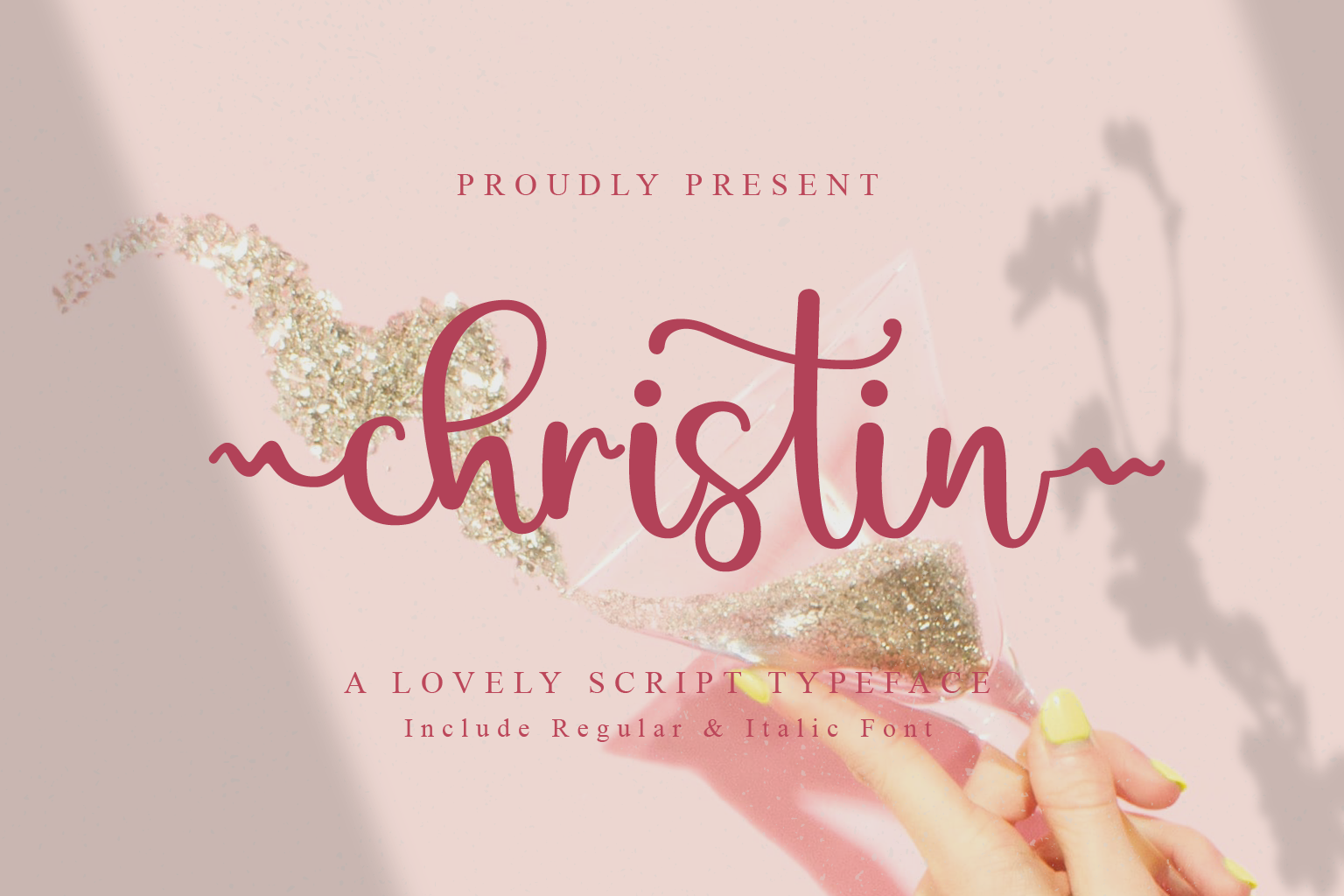
Christin | Wedding Script Font
About the Features
- Standart alphabet (lowercase, uppercase and number)
- Alternates/Swash/PUA encoded
- Two styles: Regular and Italic